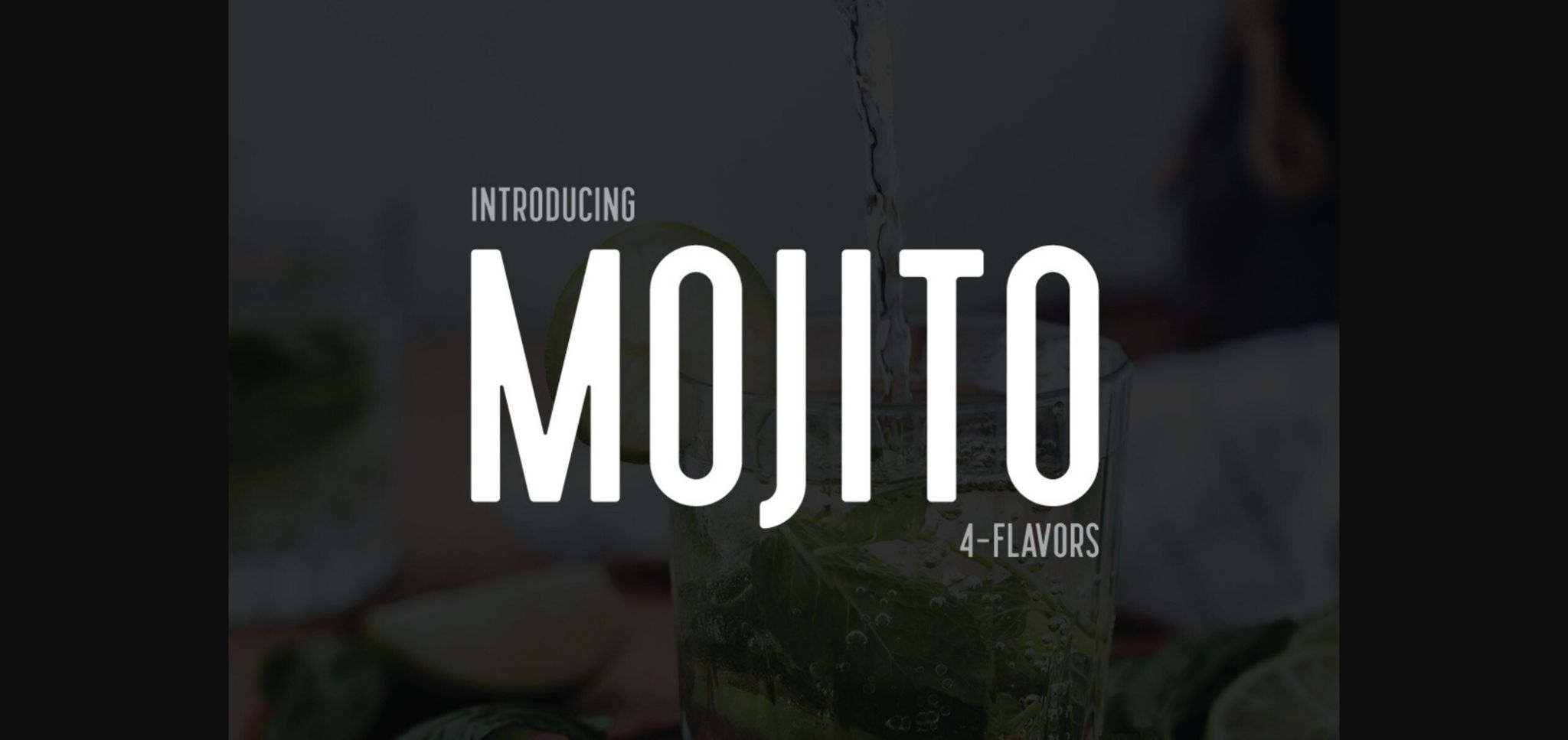
About Mojito Font
Mojito is a refreshing sans serif font that is ready for anything! This handy semi-condensed font includes clean & textured fonts, with oblique versions for each. Equally comfortable being put to use in modern or vintage projects, this versatile font is excellent for logos & branding, advertising, promotions & events, plus countless other uses.